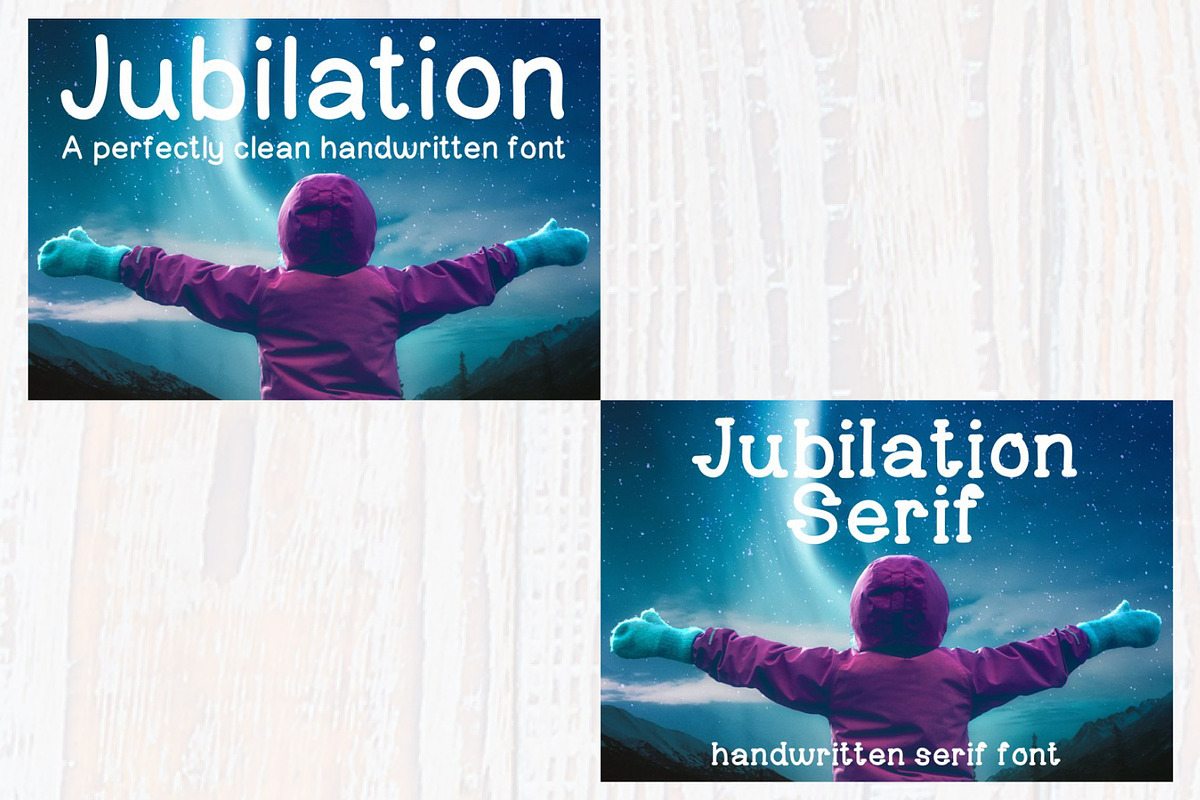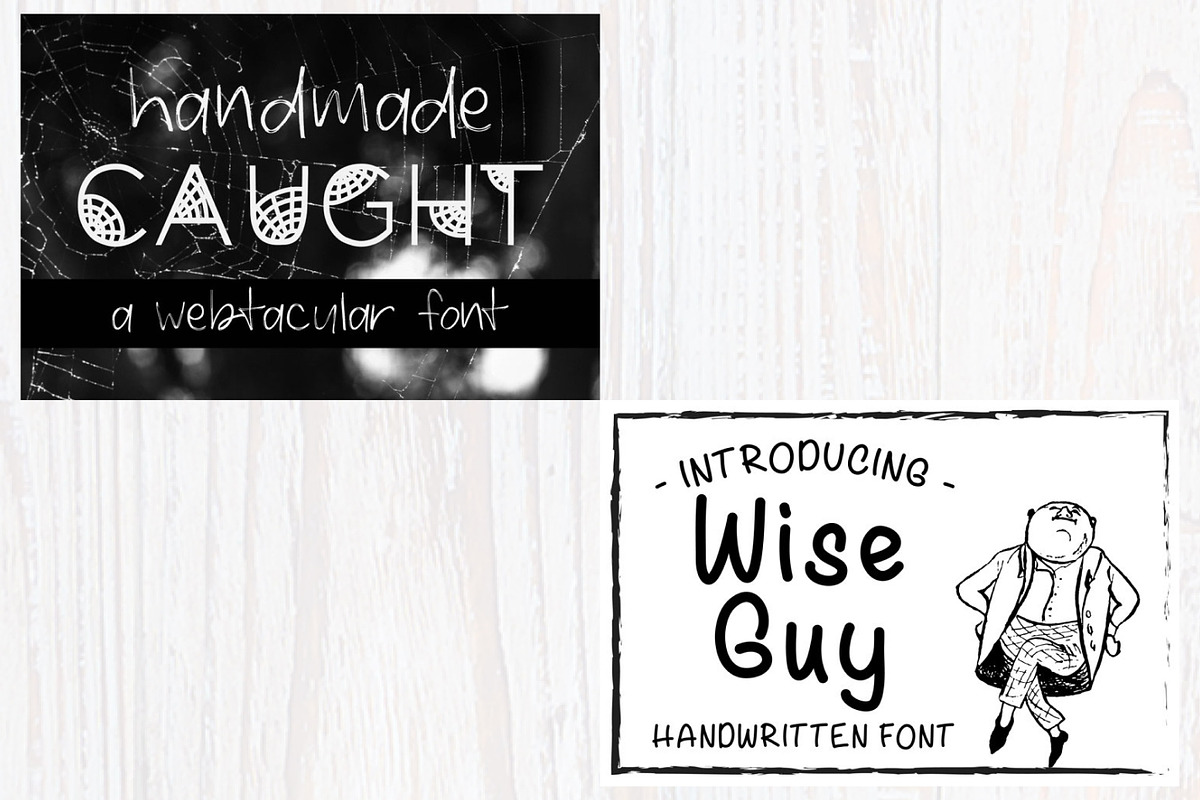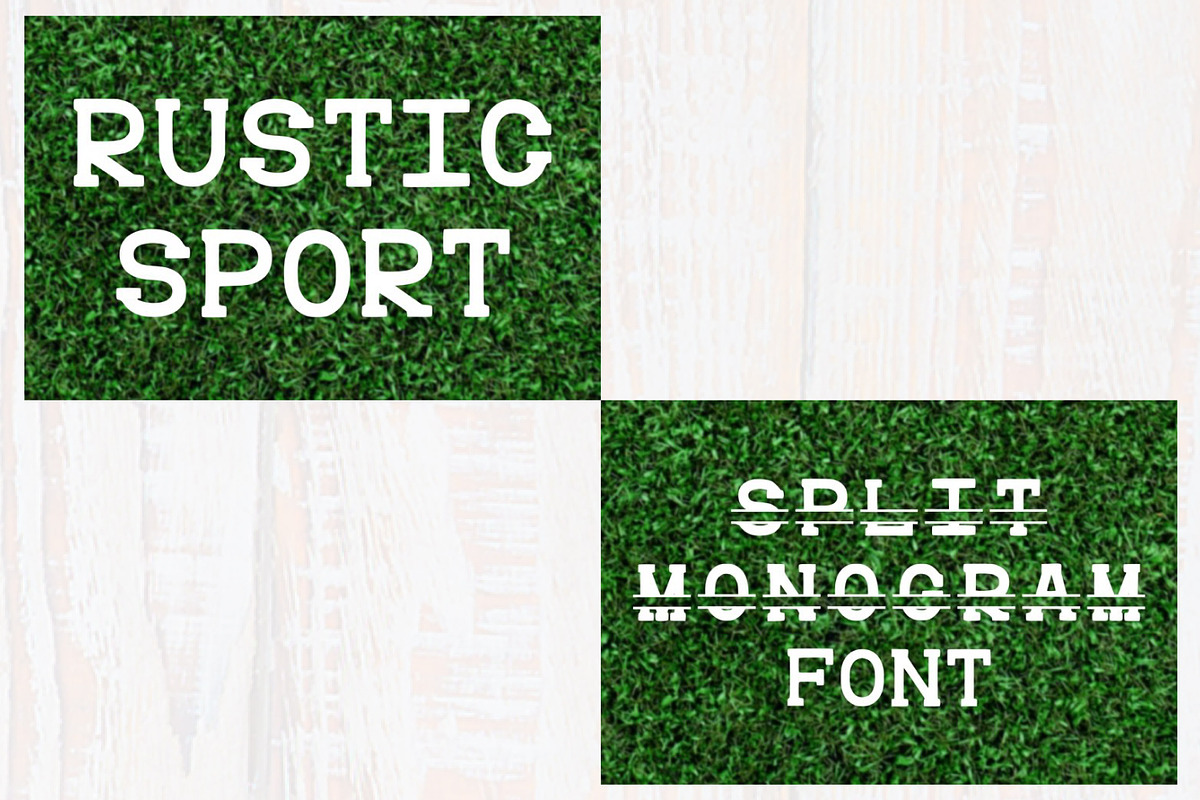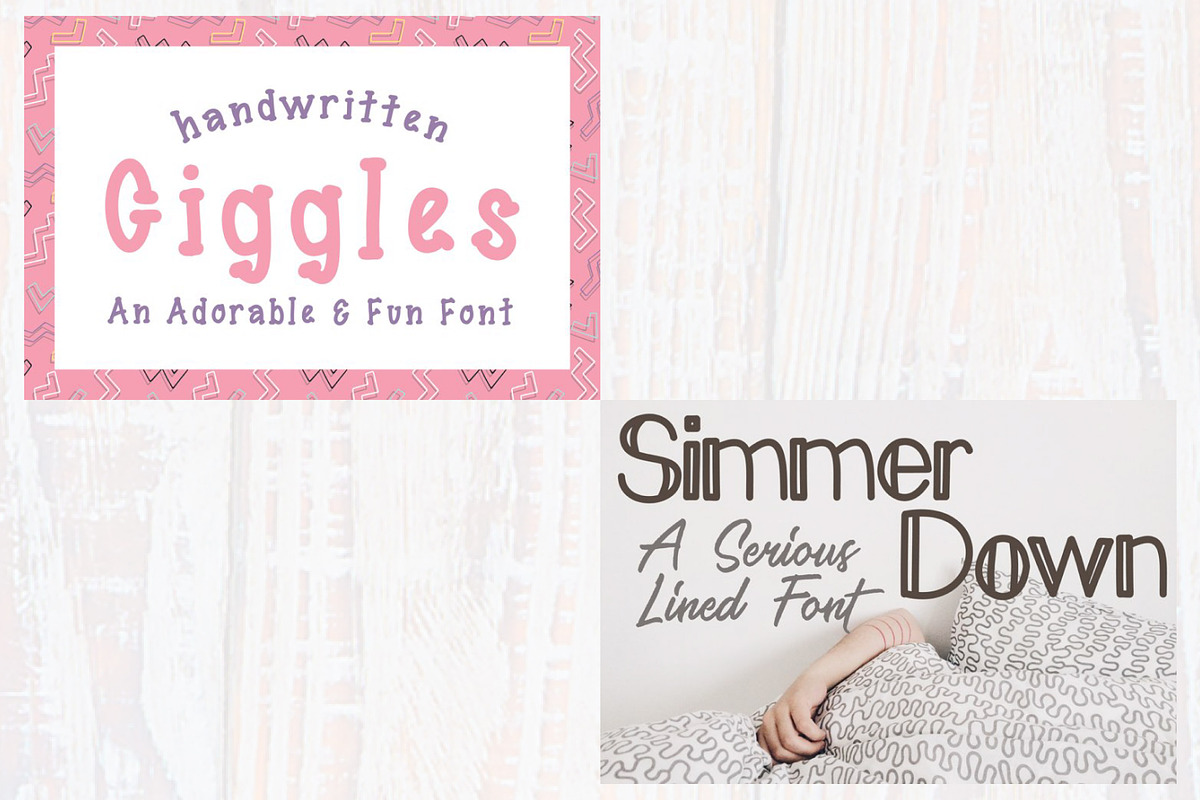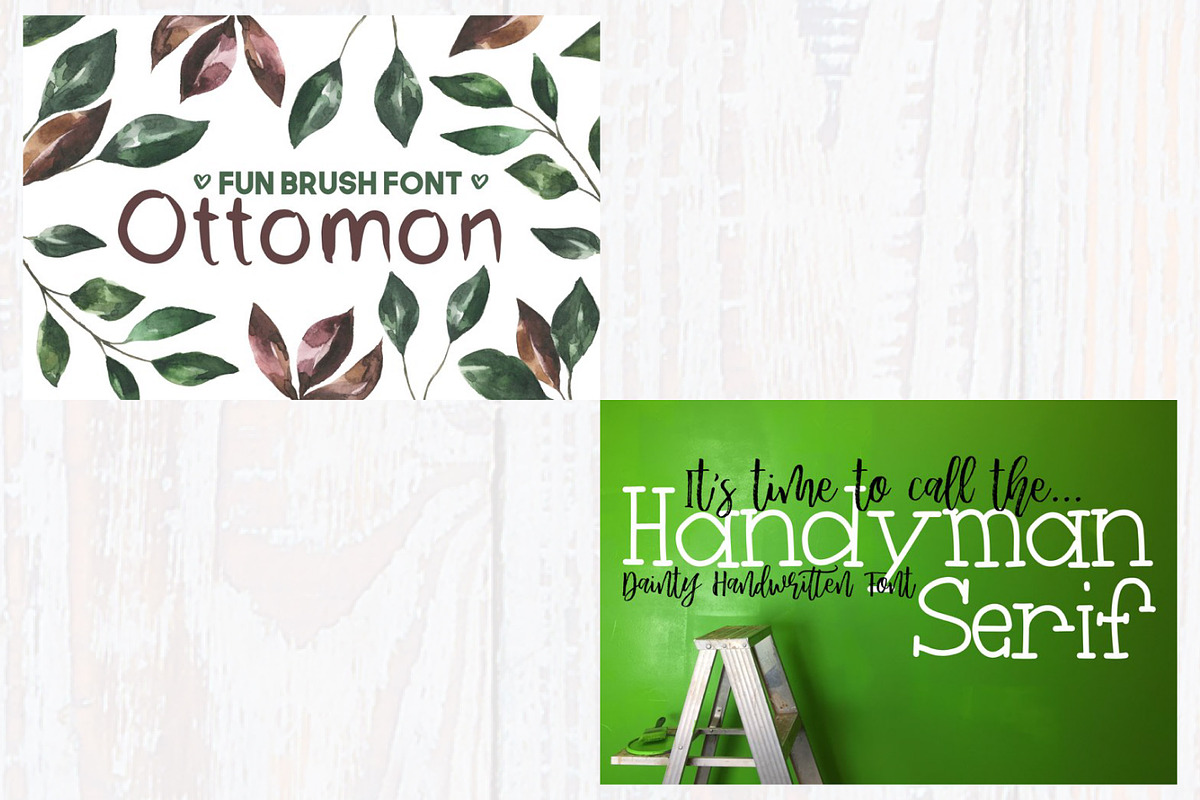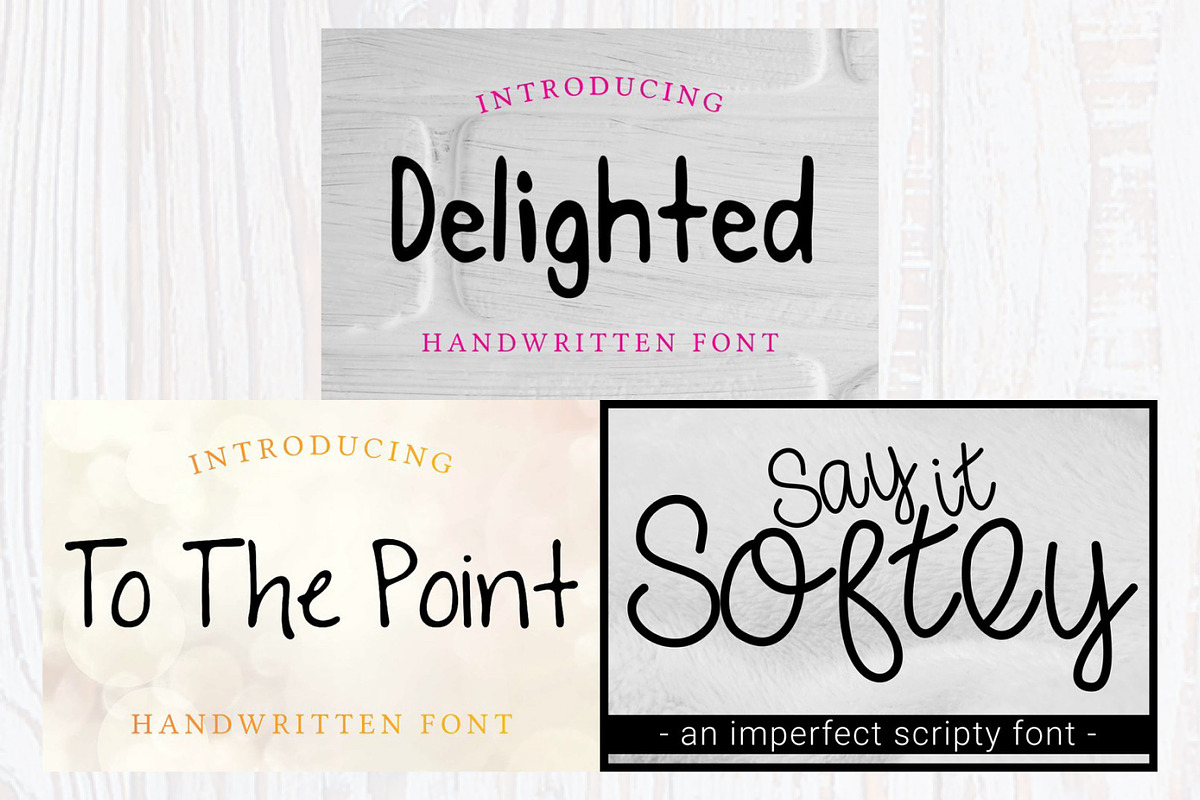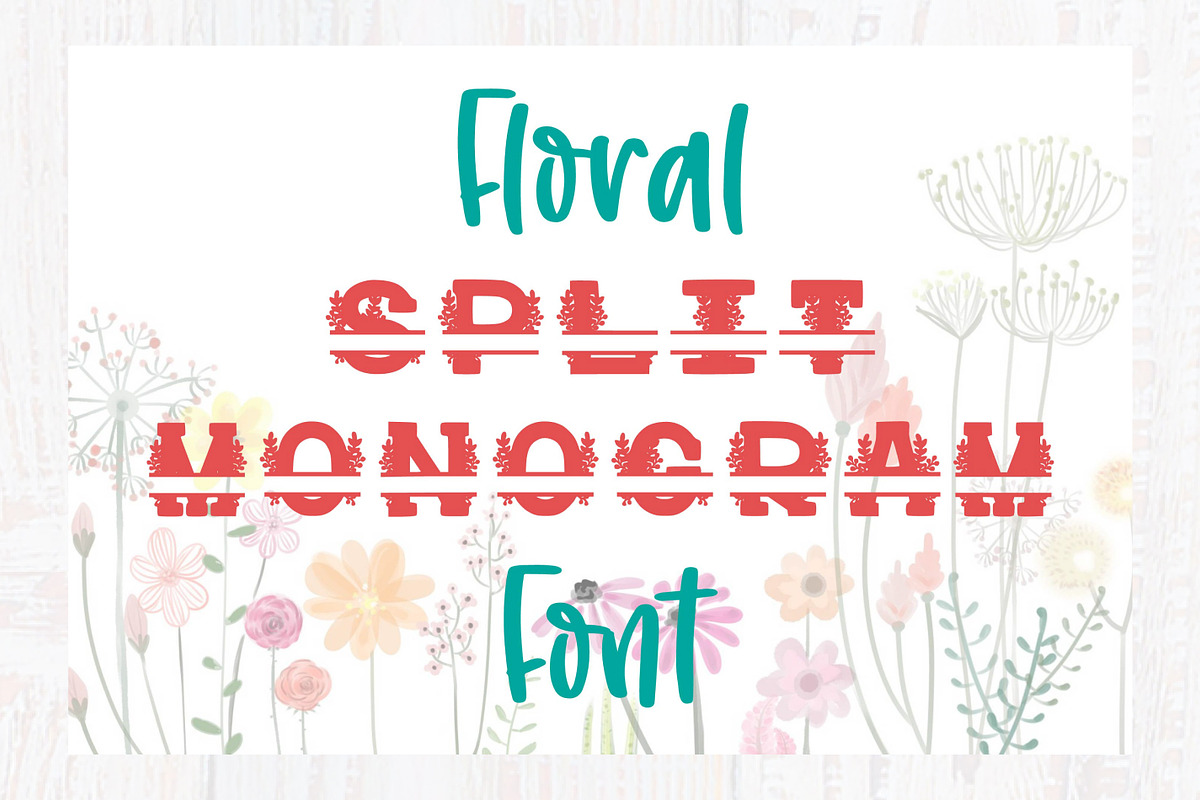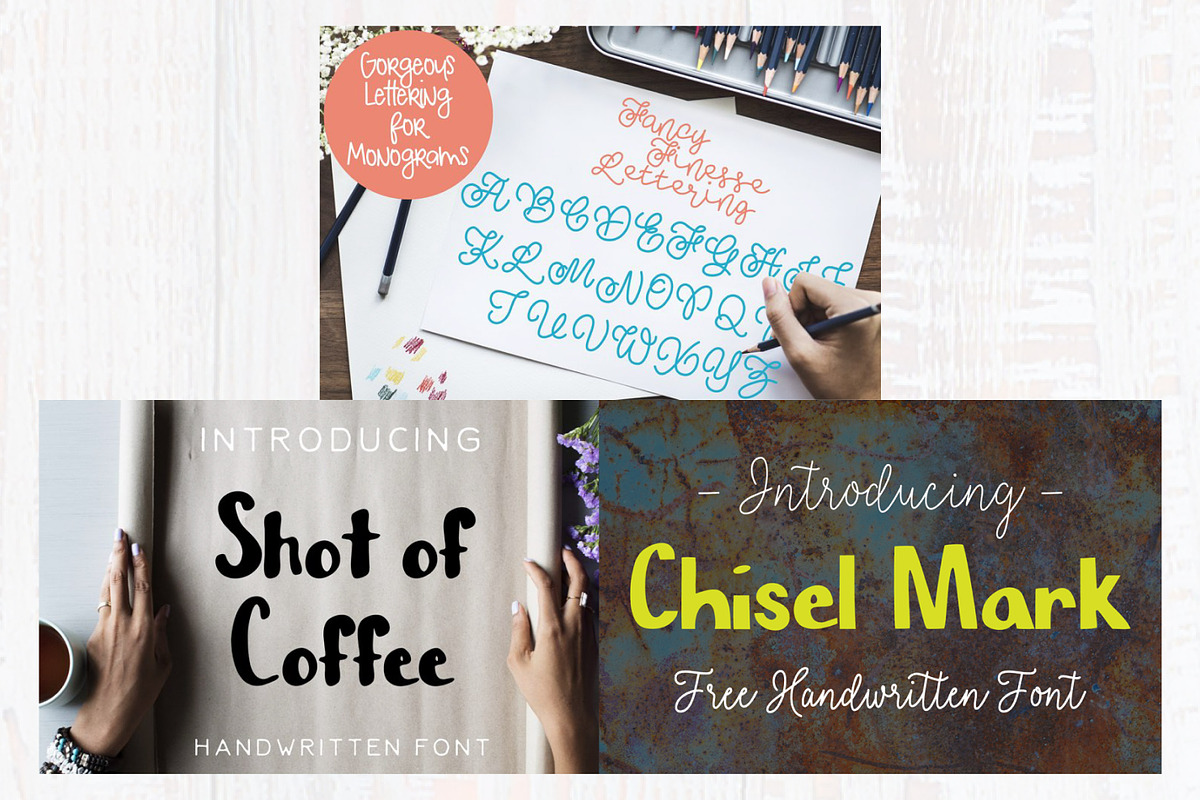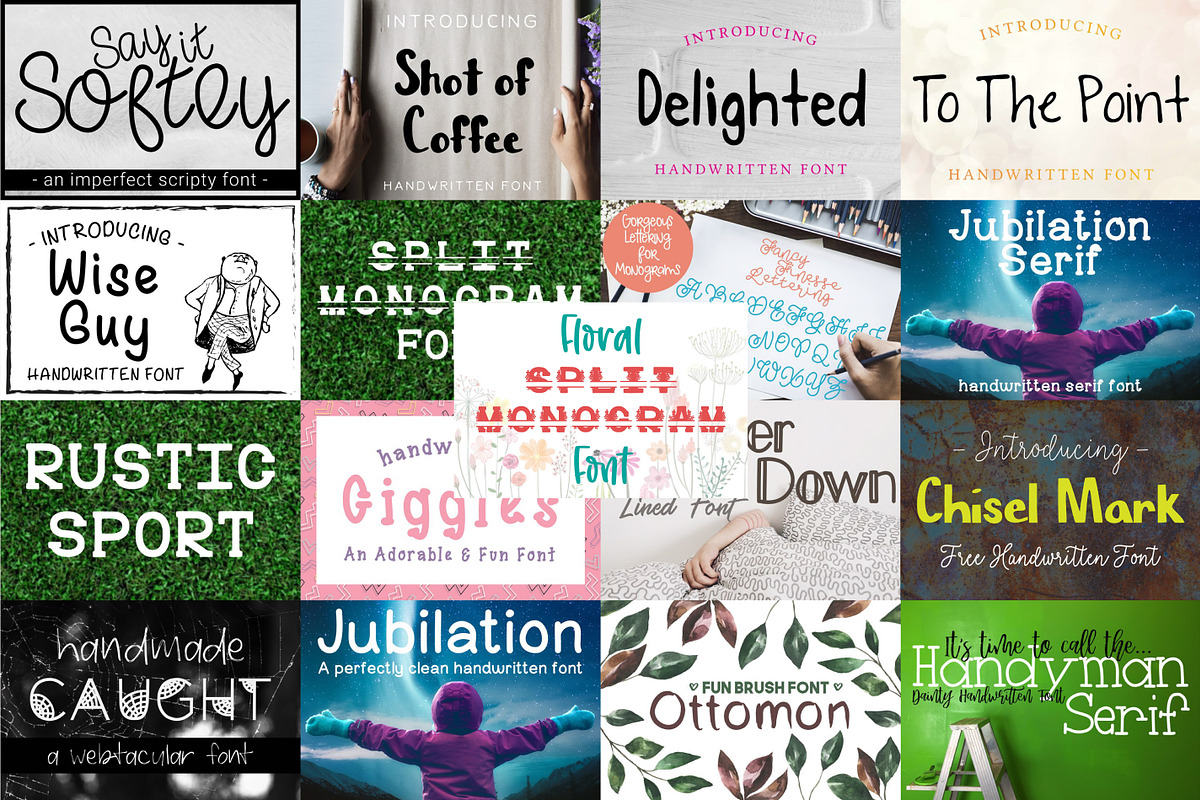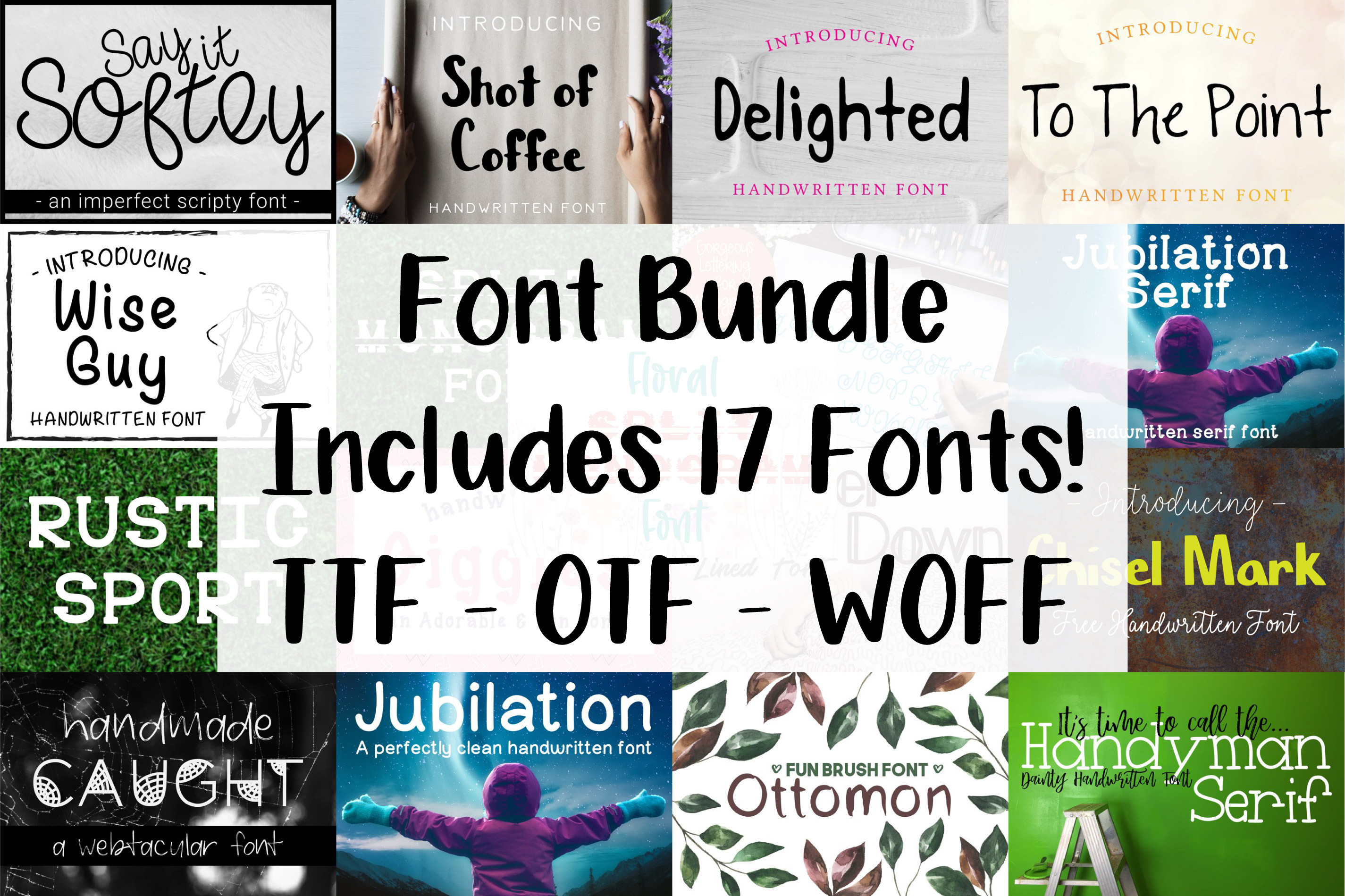
This Font Bundle includes 17 separate fonts. Fonts include: Jubilation, Jubilation Serif, Rustic Sport, Split Monogram Font, Delighted, To The Point, Say It Softly, Fancy Finesse Lettering, Shot of Coffee, Chisel Mark, Ottomon, Handyman Serif, Giggles, Simmer Down, Caught, Wise Guy, Floral Split Monogram Font. As of April 2021, that is every font I have created to date! Perfect to use for signs, decor, and decals. Please review the listing images carefully as they show every font that is included. Each font comes in OTF, TTF, and WOFF format.